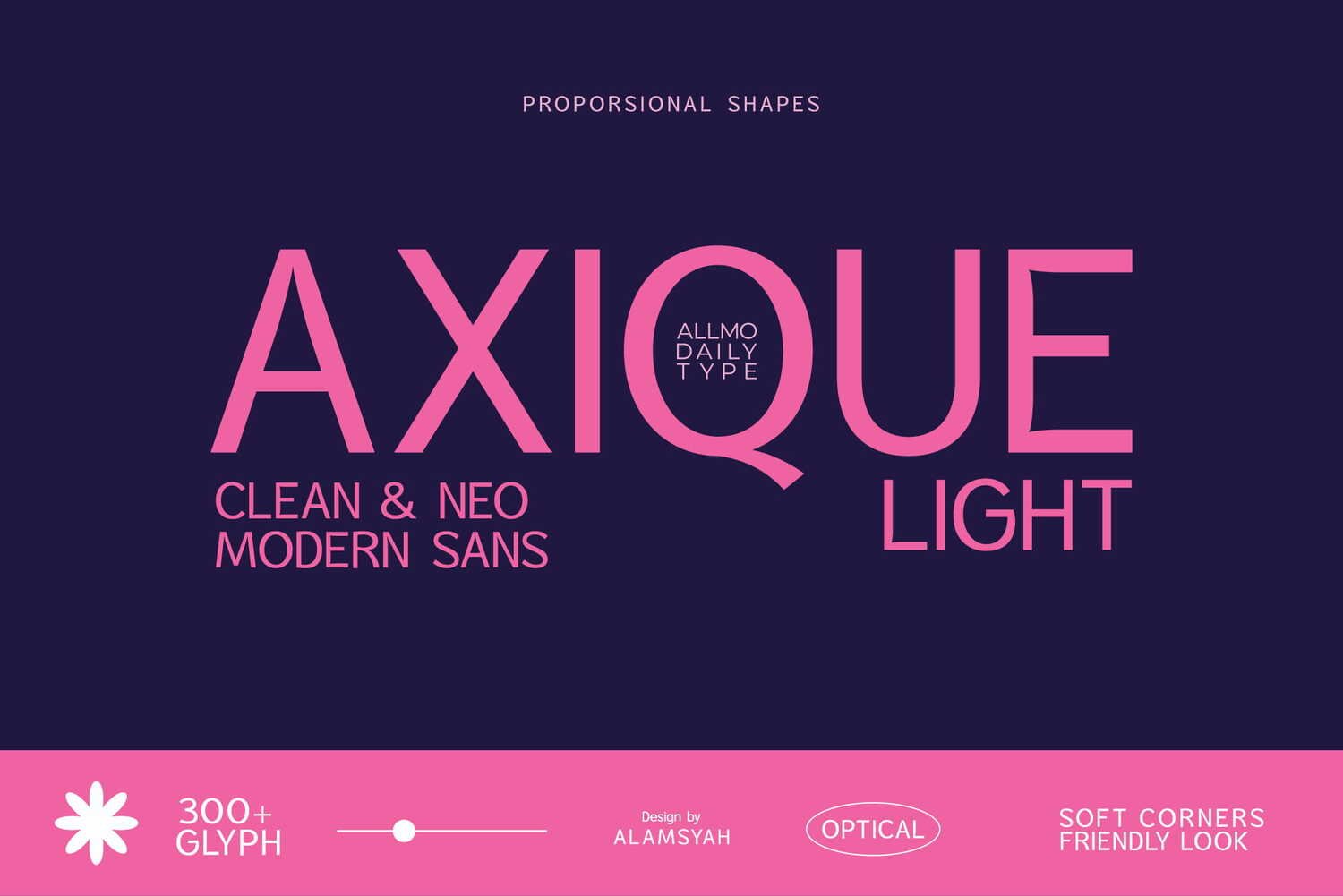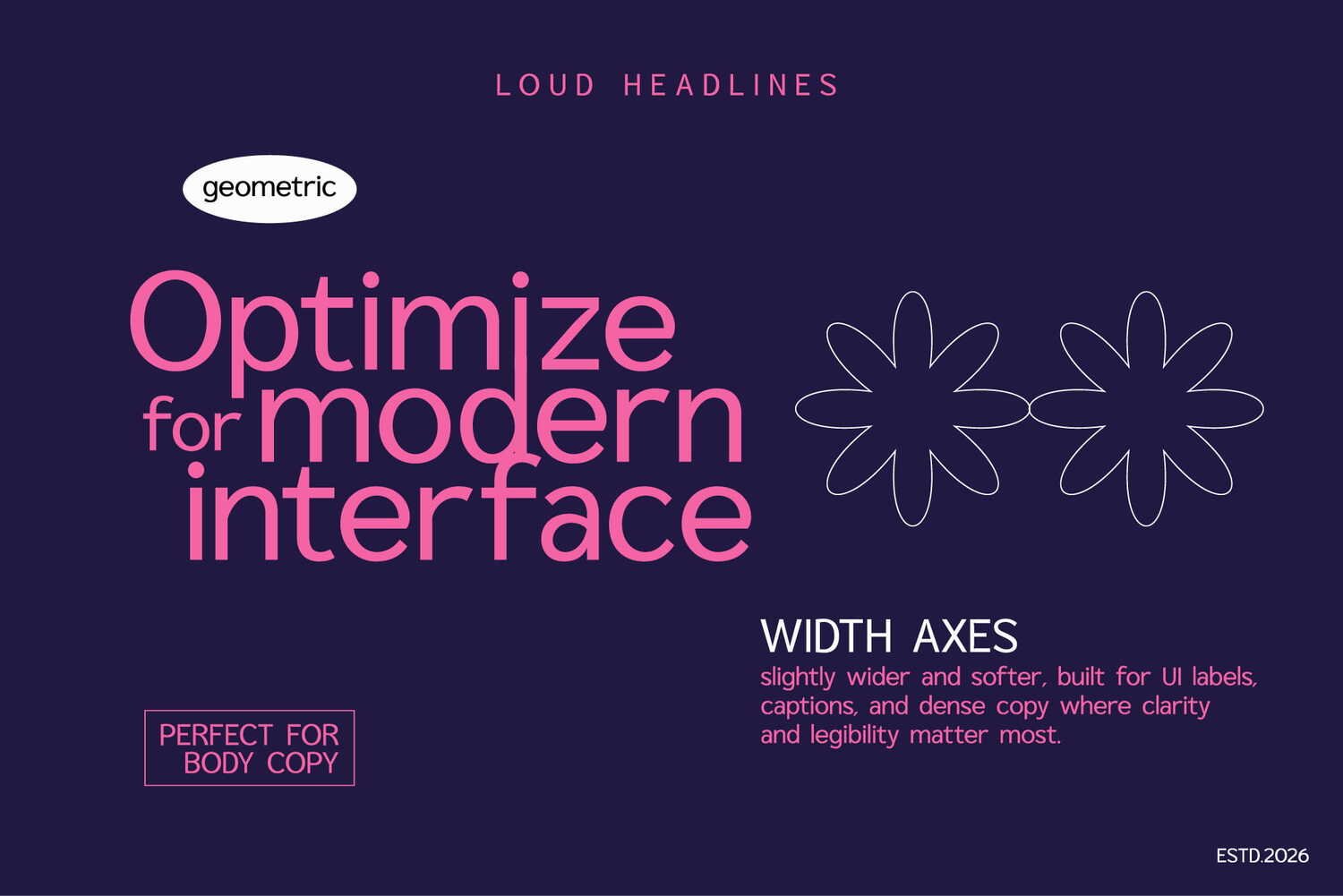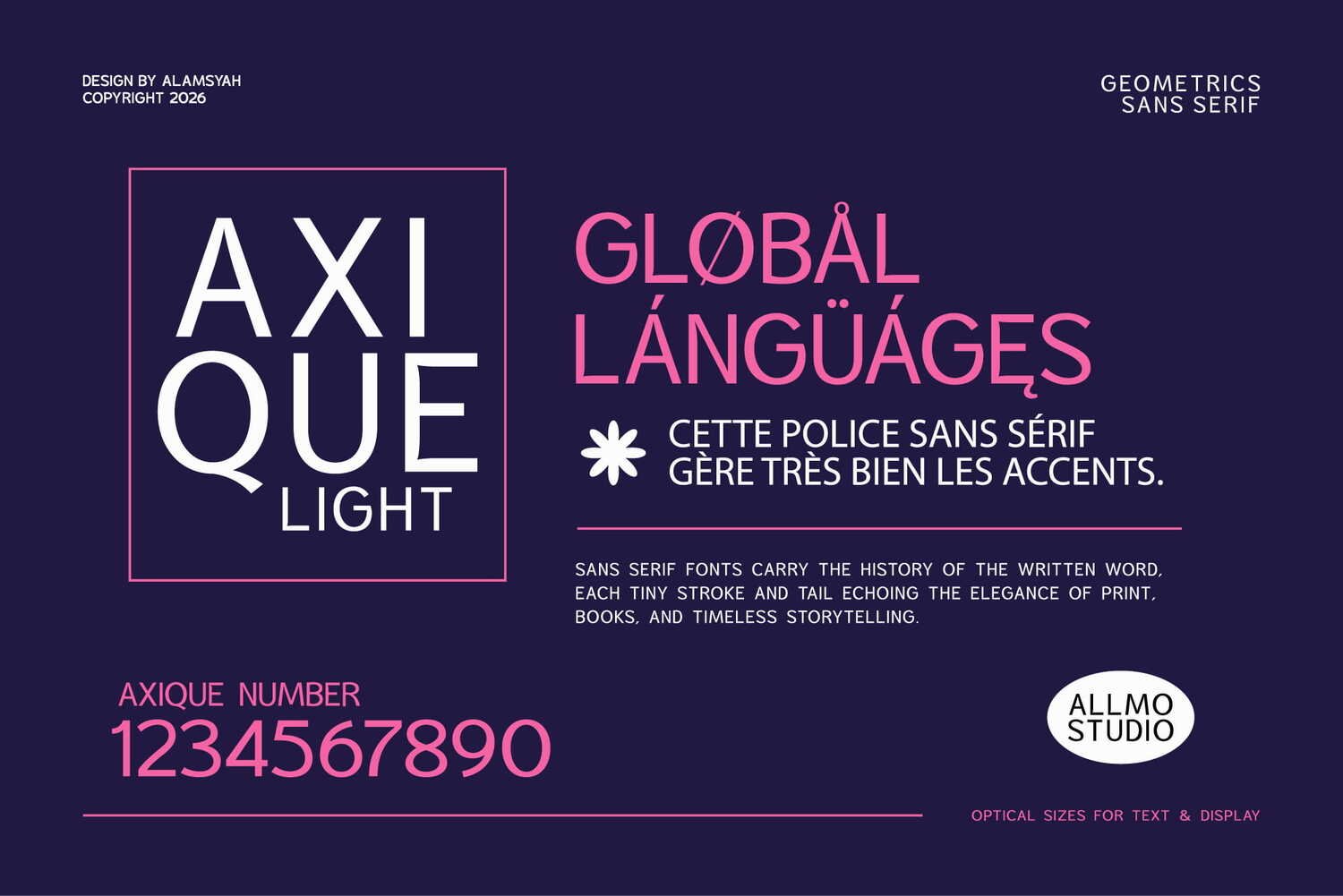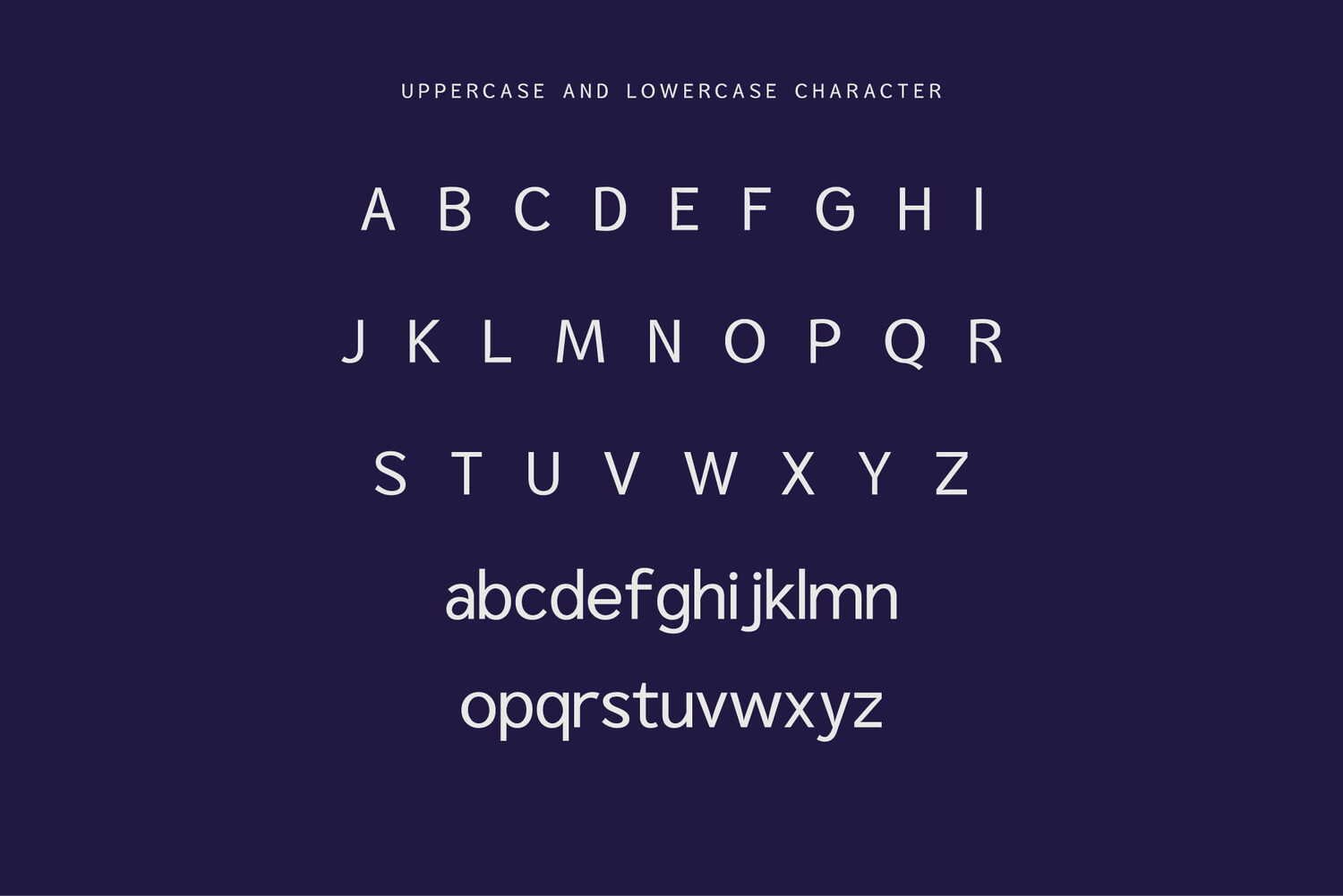
Axique Light is a clean & neo-modern sans font defined by its proportional shapes and soft-cornered terminals, crafted to deliver a light, friendly, and contemporary look. It’s the perfect choice for modern branding, tech startups, UI/UX design, editorial layouts, and minimalist packaging that demand clarity with personality.
Its optically balanced characters are designed to be effortlessly readable, making it an essential typeface for creatives seeking a blend of minimalism and modern versatility.